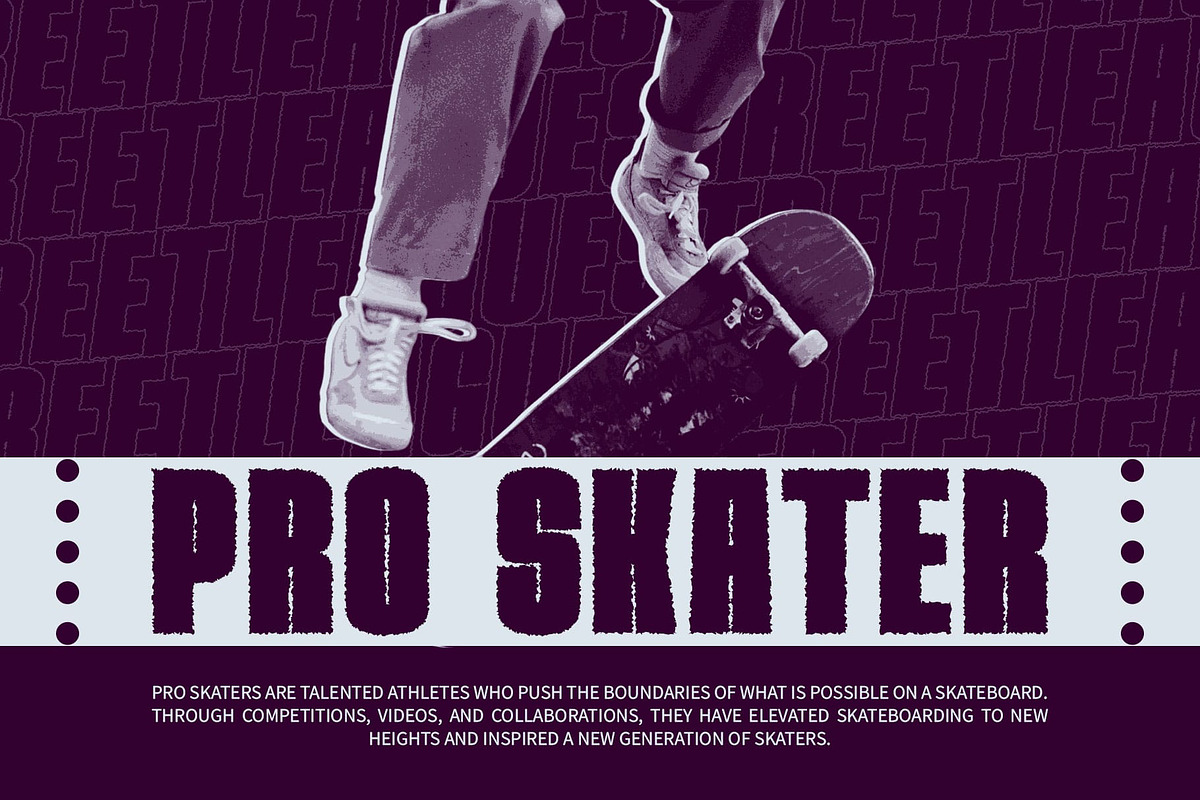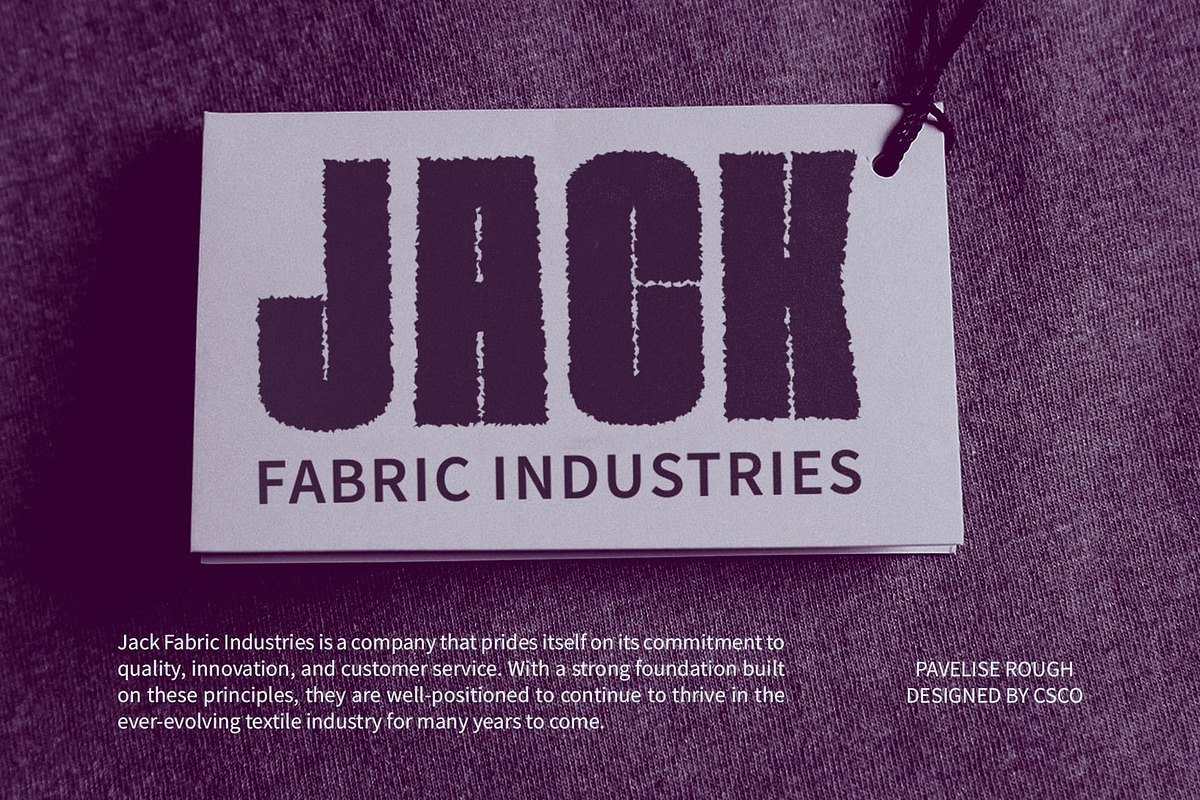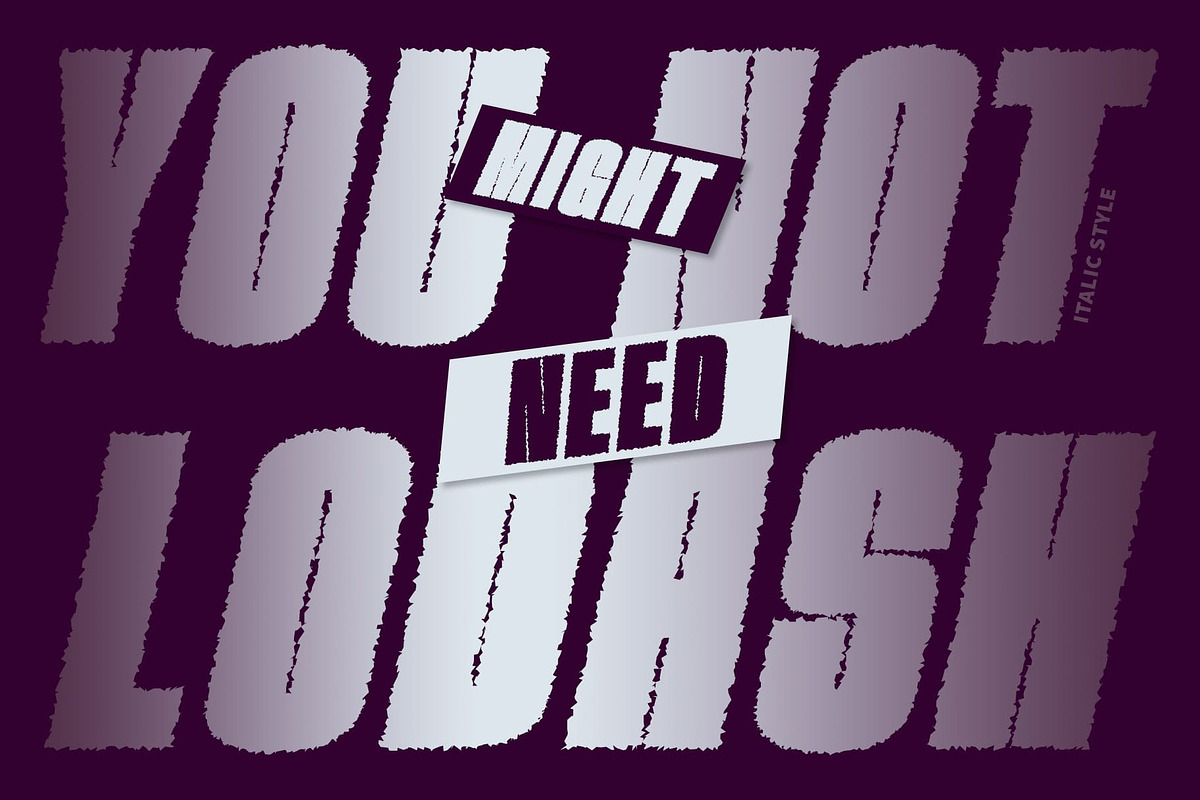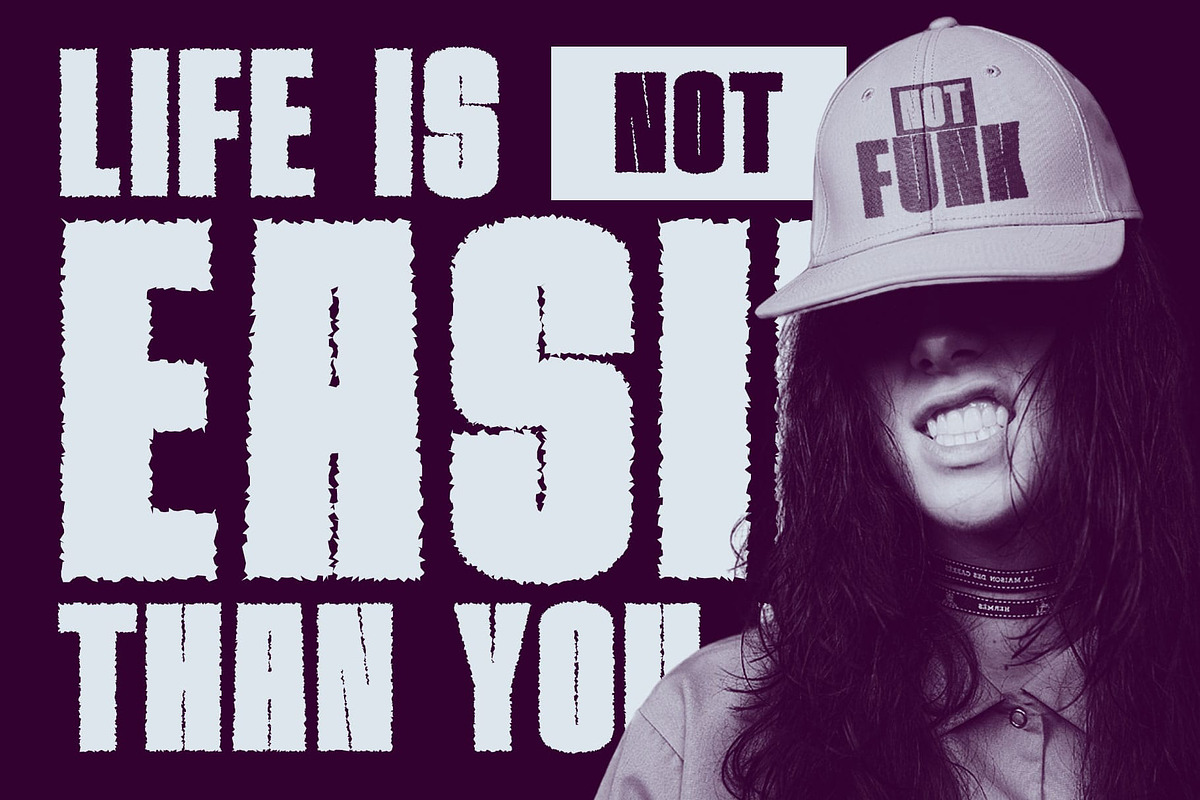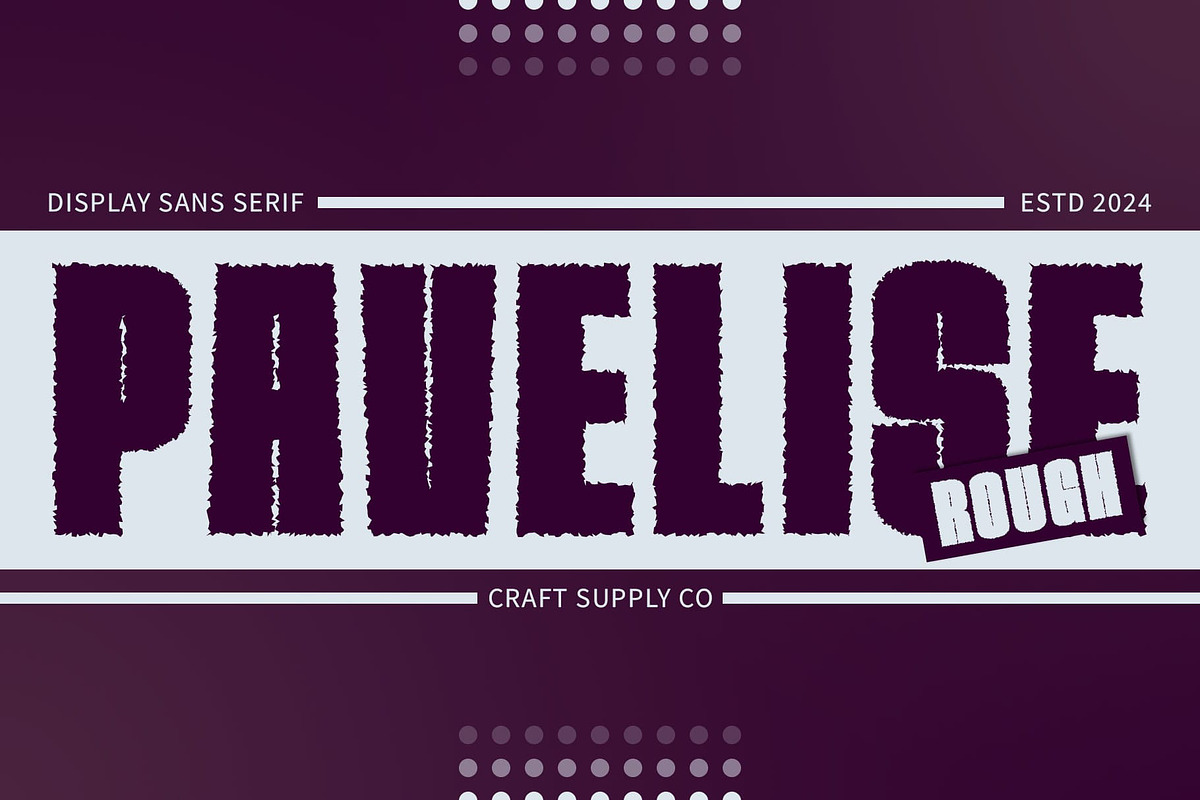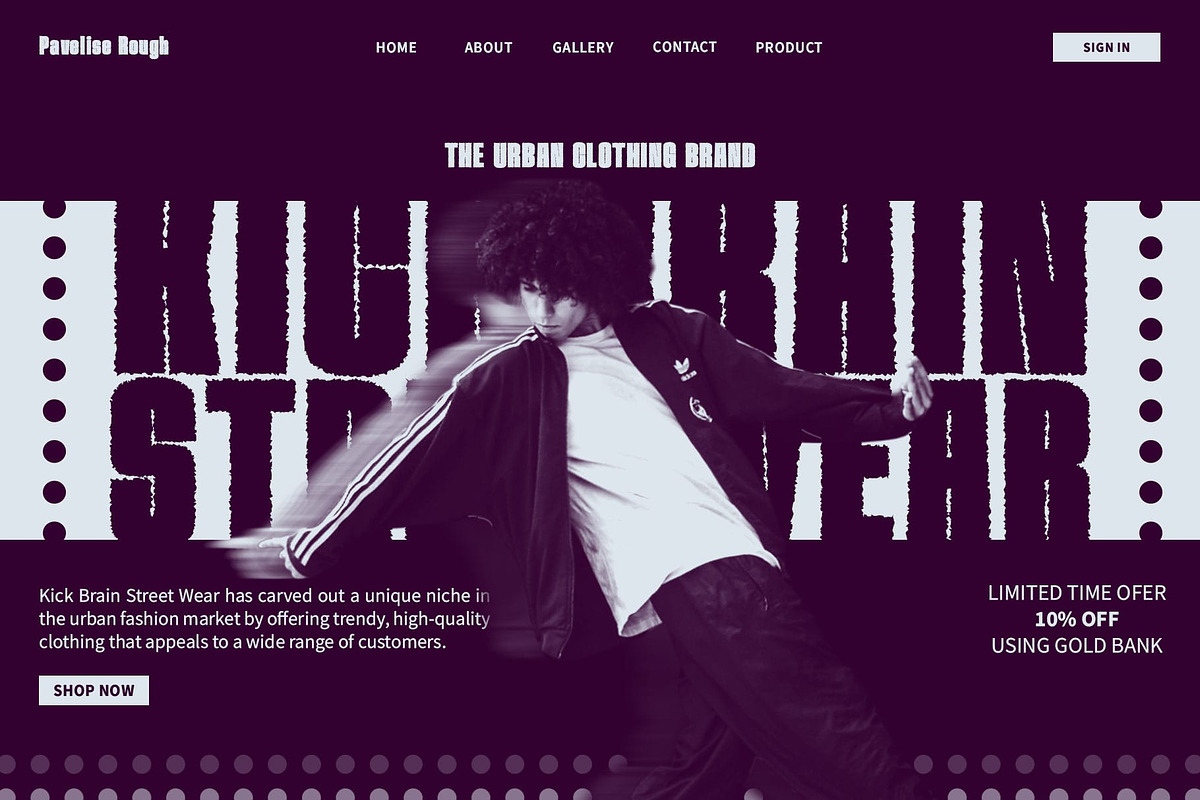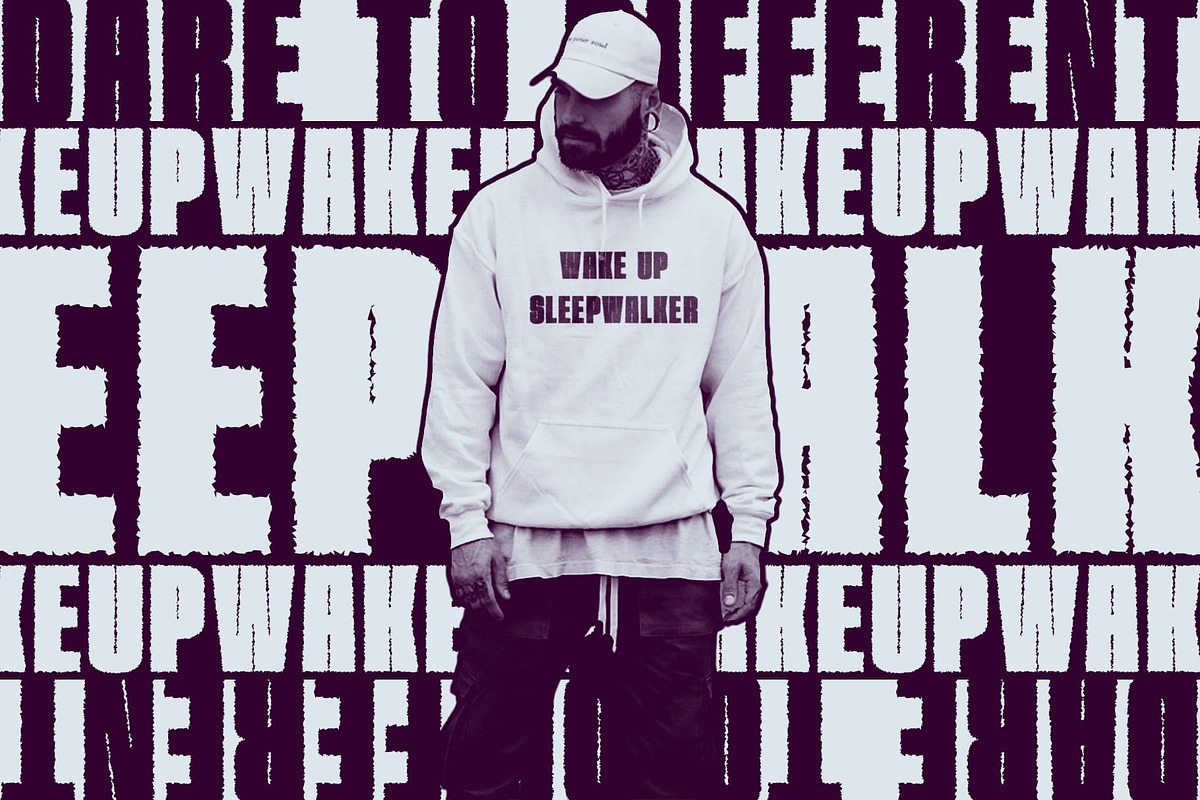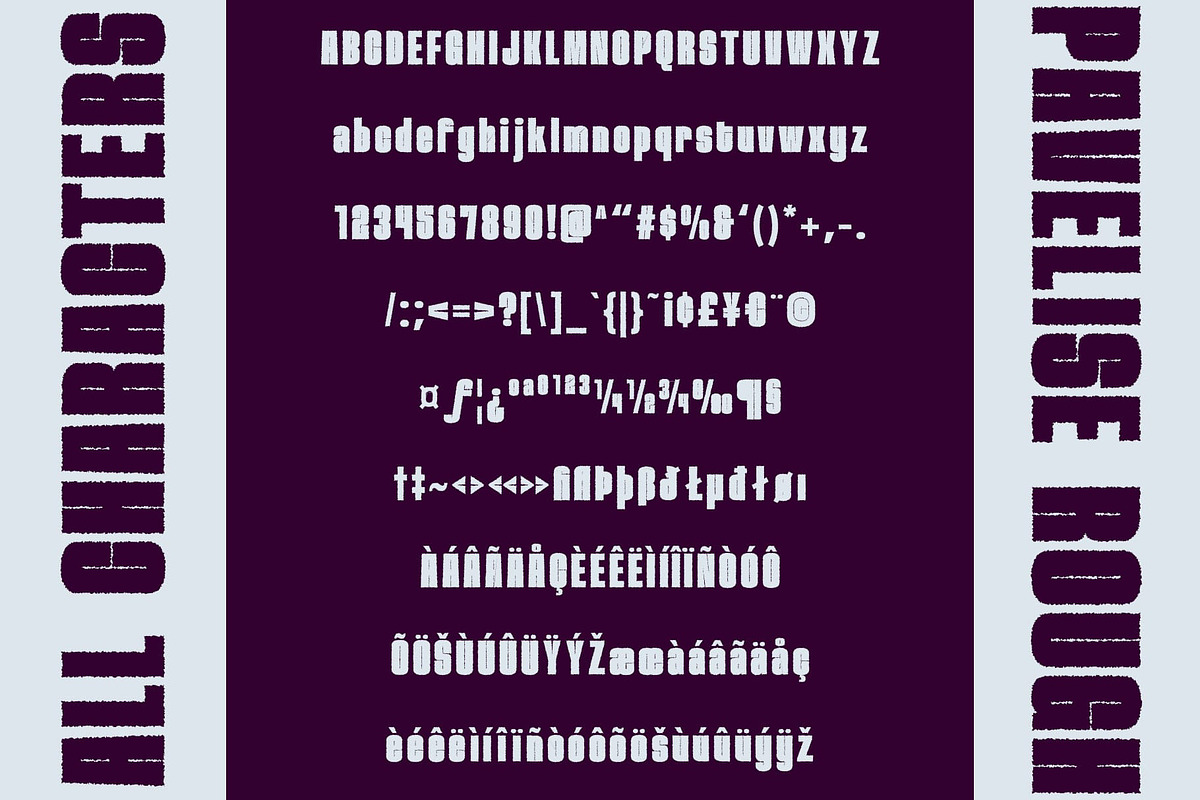
Pavelise Rough
Pavelise Rough: Vintage Vibes in Bold Sans Serif
Vintage Appeal in Every Stroke Pavelise Rough embodies the essence of vintage typography with its bold sans serif design and rough texture. Each stroke exudes retro charm, perfect for capturing nostalgic aesthetics.
Low White Space, High Impact With its low white space and bold presence, This font makes a statement in any design. Its compact layout ensures maximum impact, ideal for vintage-inspired displays that demand attention.
Retro Revival with Rough Texture Experience a retro revival with This font rough texture. The distressed elements add character and authenticity, transporting designs back to the bygone eras of yesteryears.
Versatile for Vintage and Retro From vintage posters to retro branding, This font is versatile for a wide range of applications. Its bold sans serif style and rough texture lend a timeless quality to any project, infusing it with vintage flair.
Bold Retro Typography This font offers bold sans serif typography with a vintage twist. Its low white space and rough texture bring retro charm to any design, making it perfect for vintage and retro-themed projects that require a bold and impactful display.